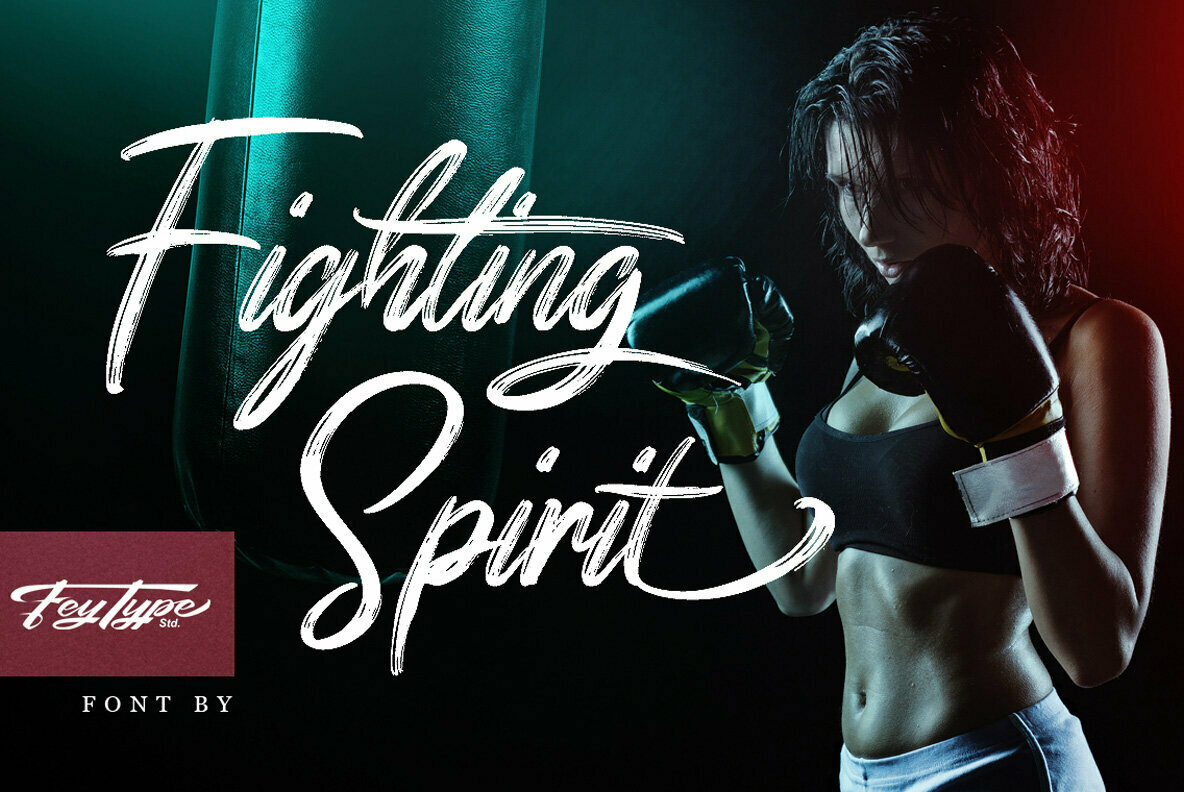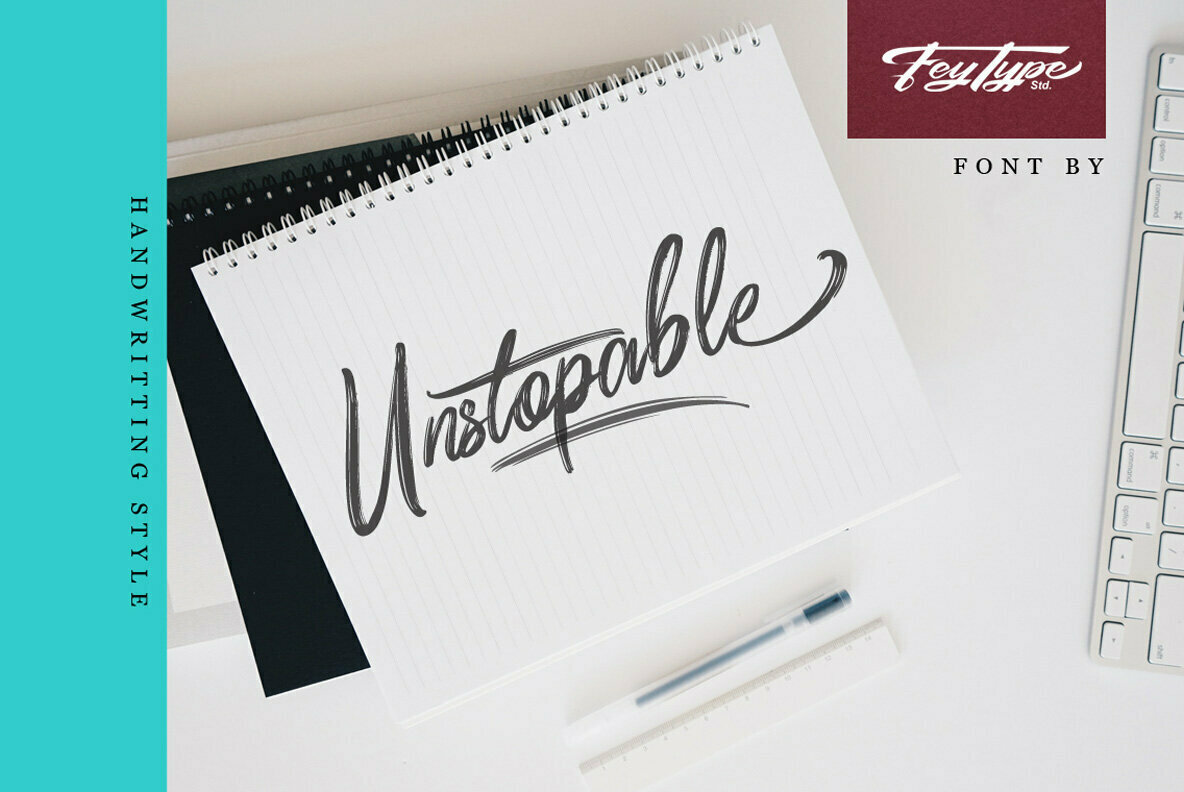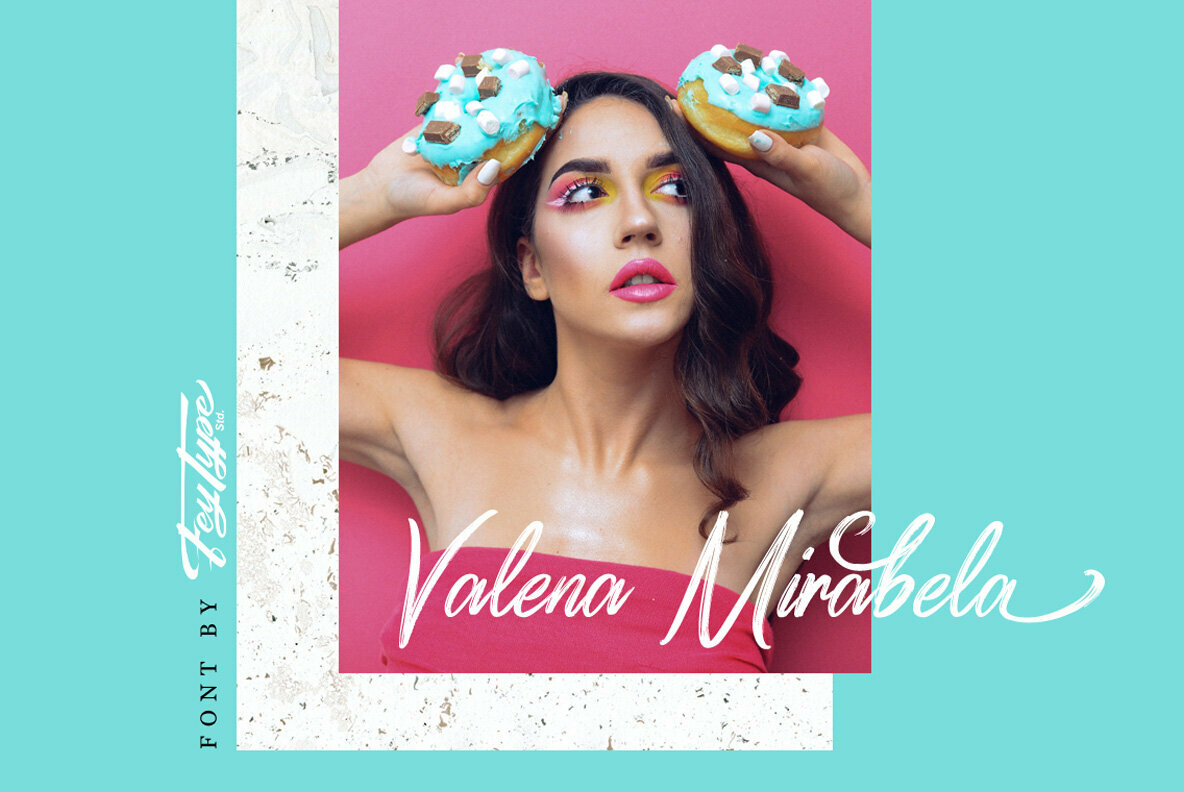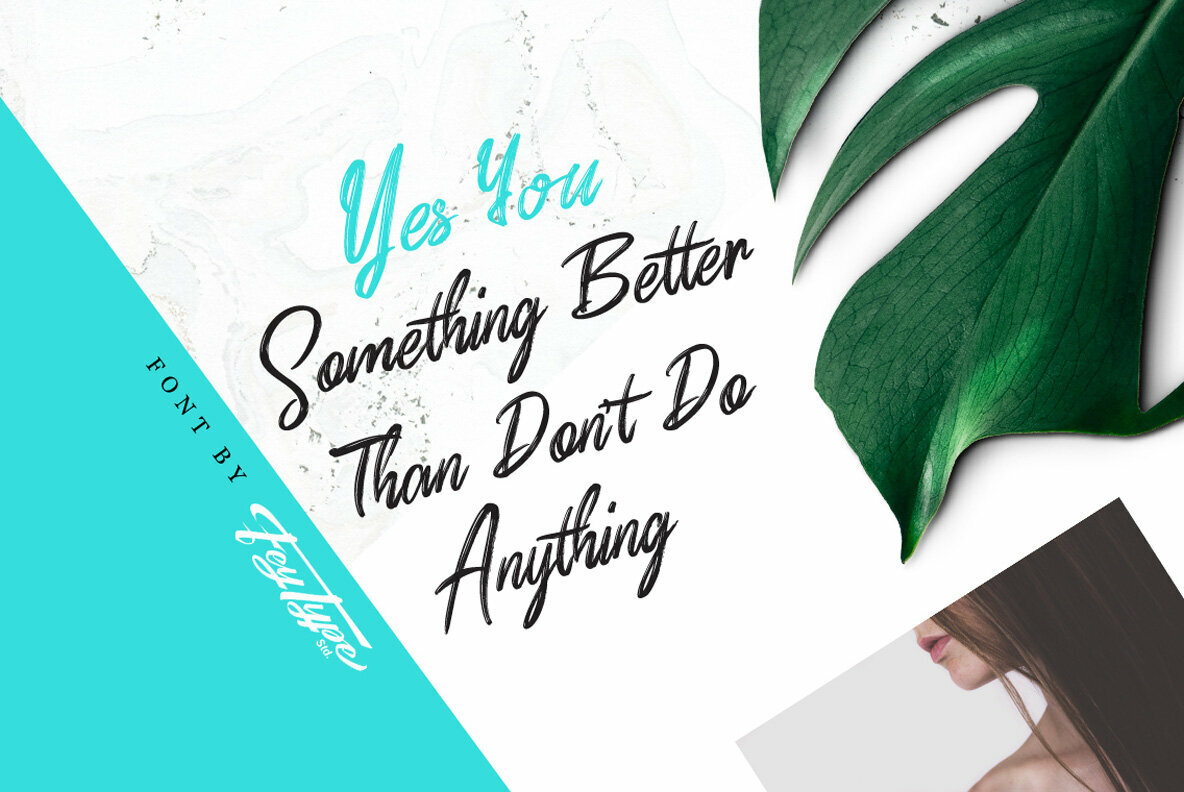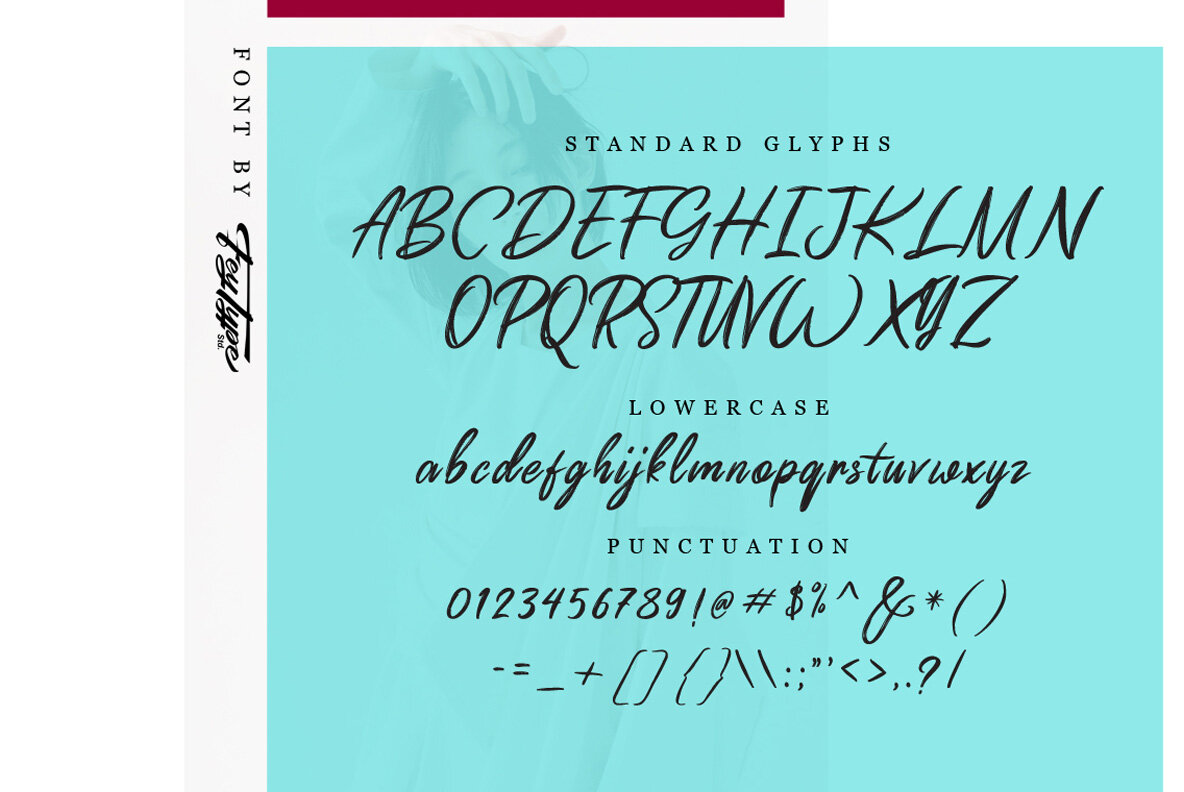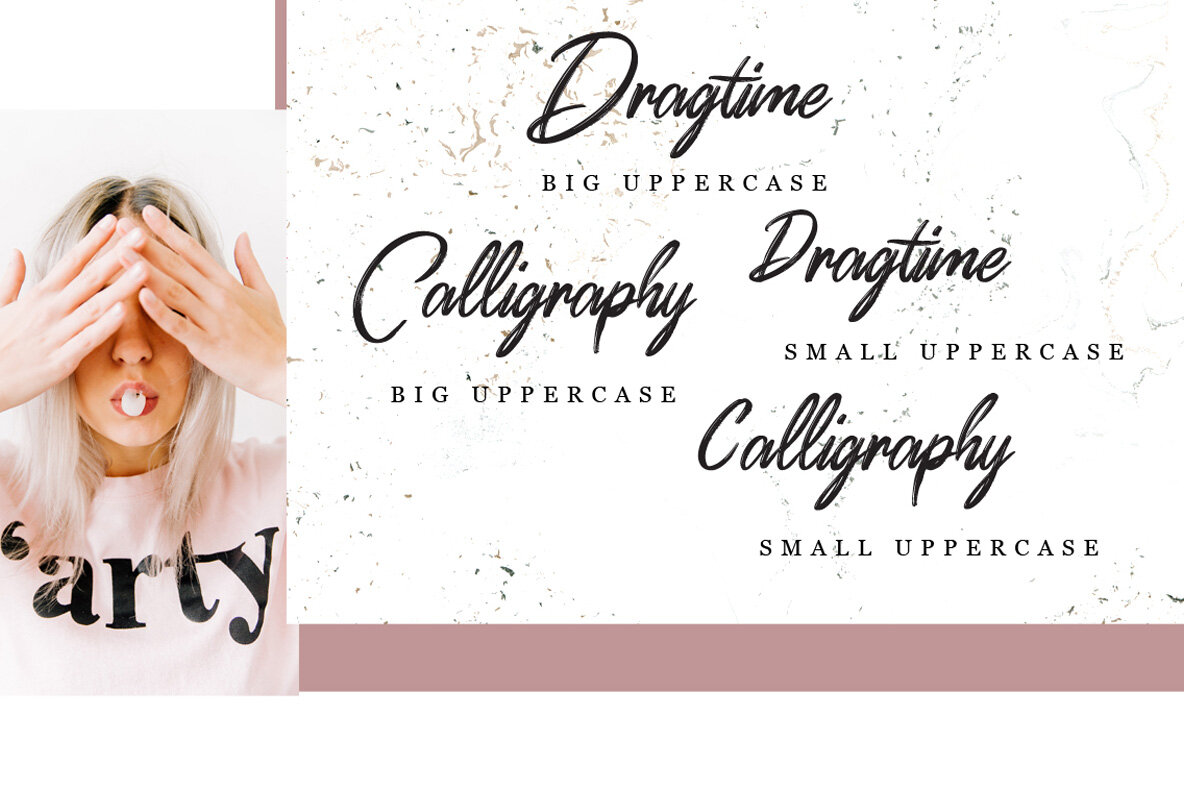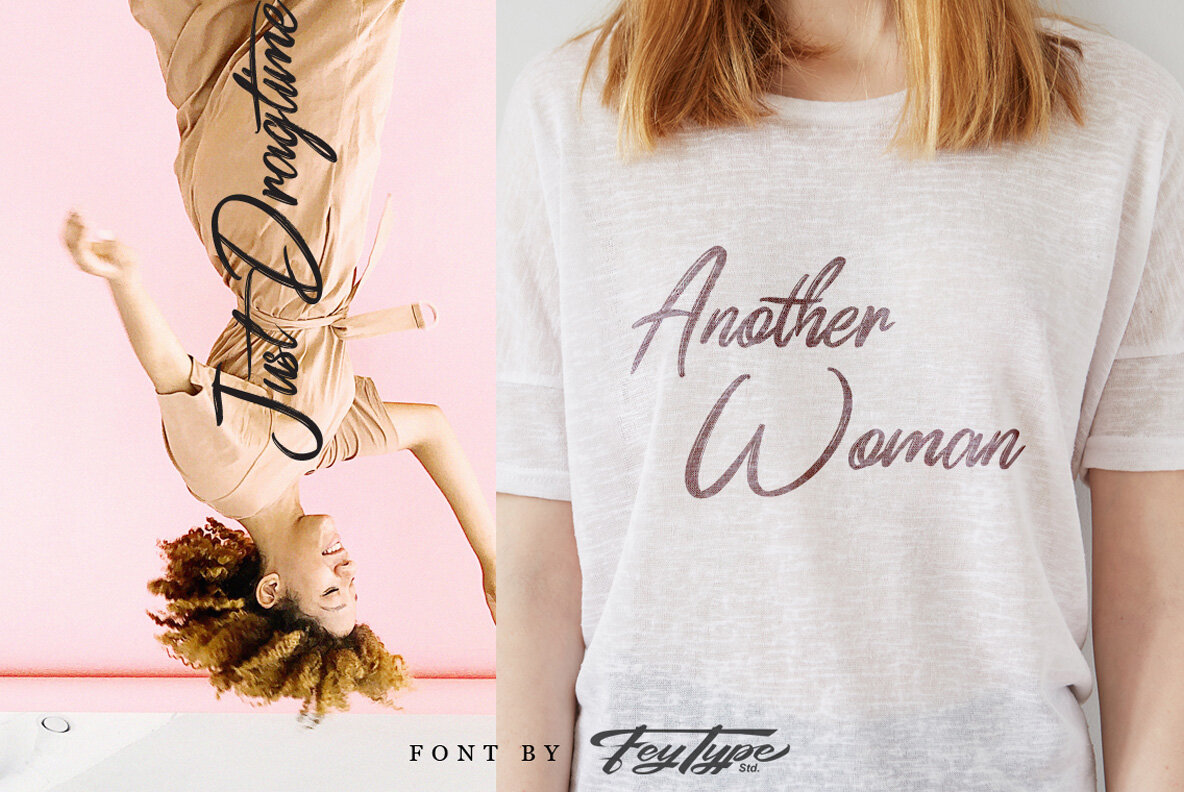
Dragtime Font
The Dragtime font brings a uniquely crafted, handwritten script to embellish your design projects. With its distinctive signature style, it is ideally suited for creating captivating designs, whether for weddings, events, t-shirts, logos, badges, or stickers. This versatile typeface provides an elegant touch, perfect for a range of creative endeavors. How to InstallDragtime: Handwritten Script with Signature Style